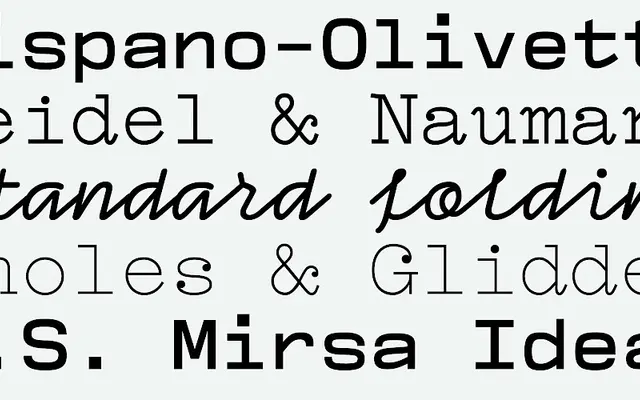
Compagnon
A humanist serif developed at the EESAB art school in France, combining calligraphic warmth with structured letterforms across three weights.
Designed and published through the U+270D type programme at EESAB, Compagnon draws on humanist and calligraphic traditions to produce a serif suited to editorial and body text use. The family runs across three weights, each with matching italics, giving it reasonable range for continuous reading. Its hand-drawn quality sets it apart from more mechanical serifs, lending a personal character to the forms.
Compagnon displays humanist serif characteristics with organic, calligraphic influences typical of type designed within an art school context, combining hand-drawn qualities with structured letterforms.